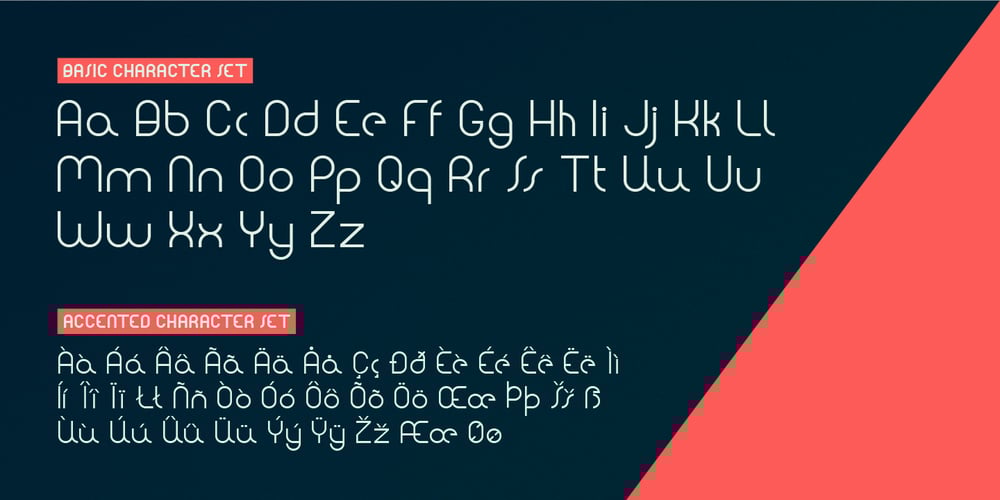
Strom
Strom font
Strom Font Family was designed by Lasse Strøm and published by Lasse Strøm. Strom contains 12 styles and family package options. STROM is а modern sans serif font with minimalistic and geometric characters. The rounded corners give the typeface a friendly look, yet it retains a professional quality. The attention to detail paid during its development means that this typeface offers a vast range of design possibilities – and helps users create eye-catching designs. The different font styles are built on the same foundation, so they can be mixed and matched while maintaining a harmonious look. The simple, clean lines make it noticeable and ideally suited in display settings, advertising, packaging, logo, branding, poster, billboards, film, television, web, screen and print design.